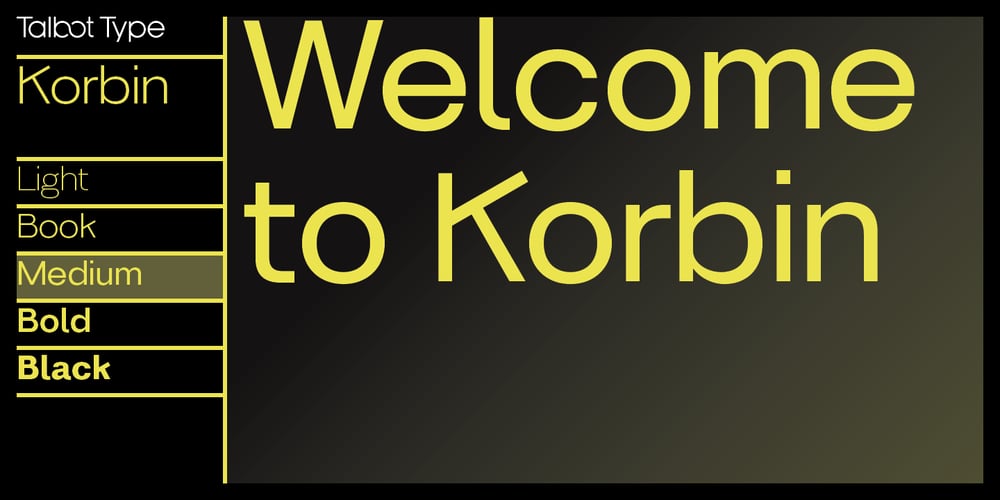
Korbin Font Family was designed by Adrian Talbot and published by Talbot Type. Korbin contains 10 styles and family package options. Inspired by the sans-serifs of the late 19th and early 20th century, Korbin is a legible and versatile text and display face available in five weights. It mixes geometric and humanist traits to achieve a modern, clean, friendly appearance. The italic variations include bespoke characters for a more flowing look. Includes accented characters for Central and Eastern European languages.